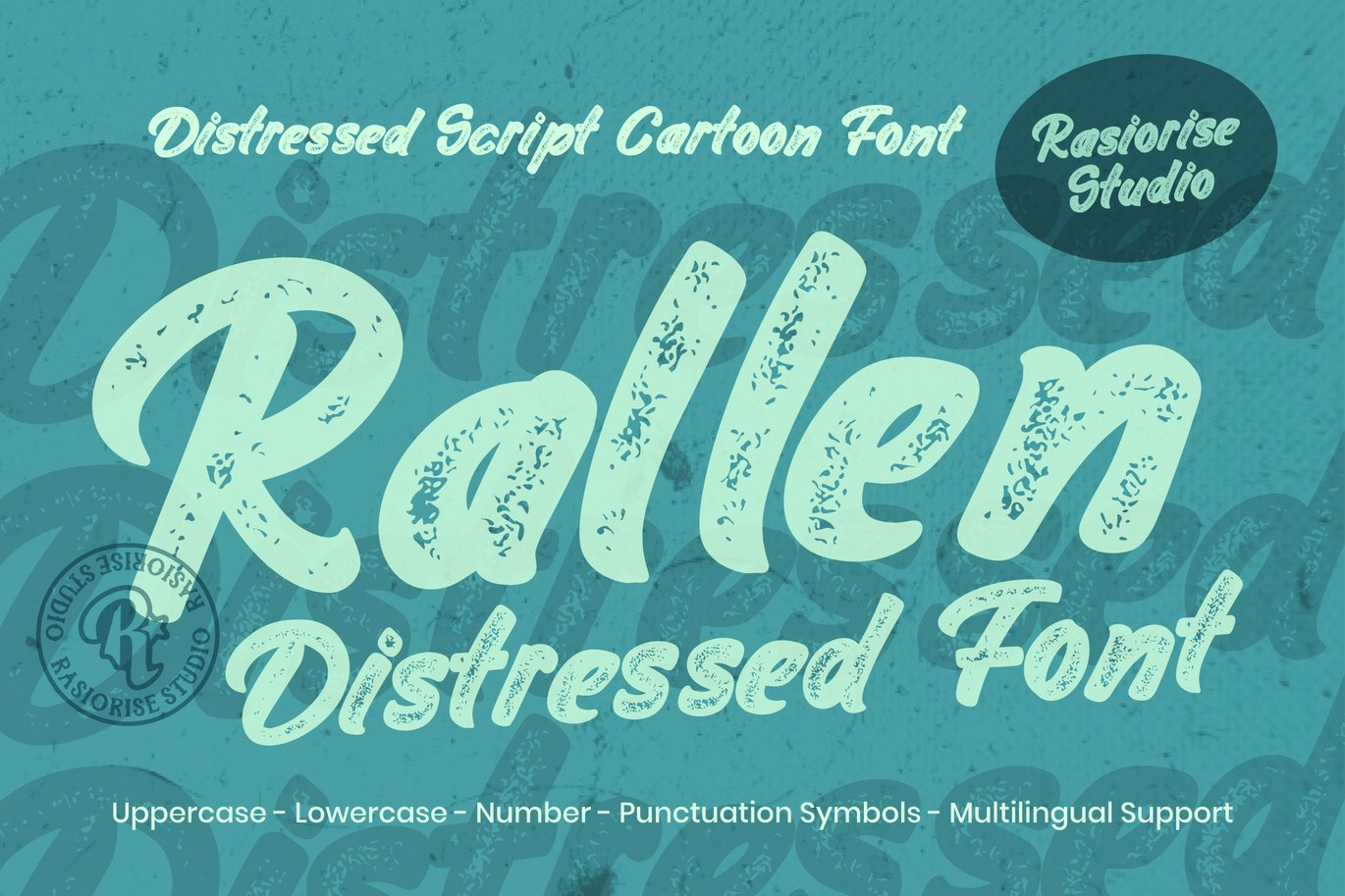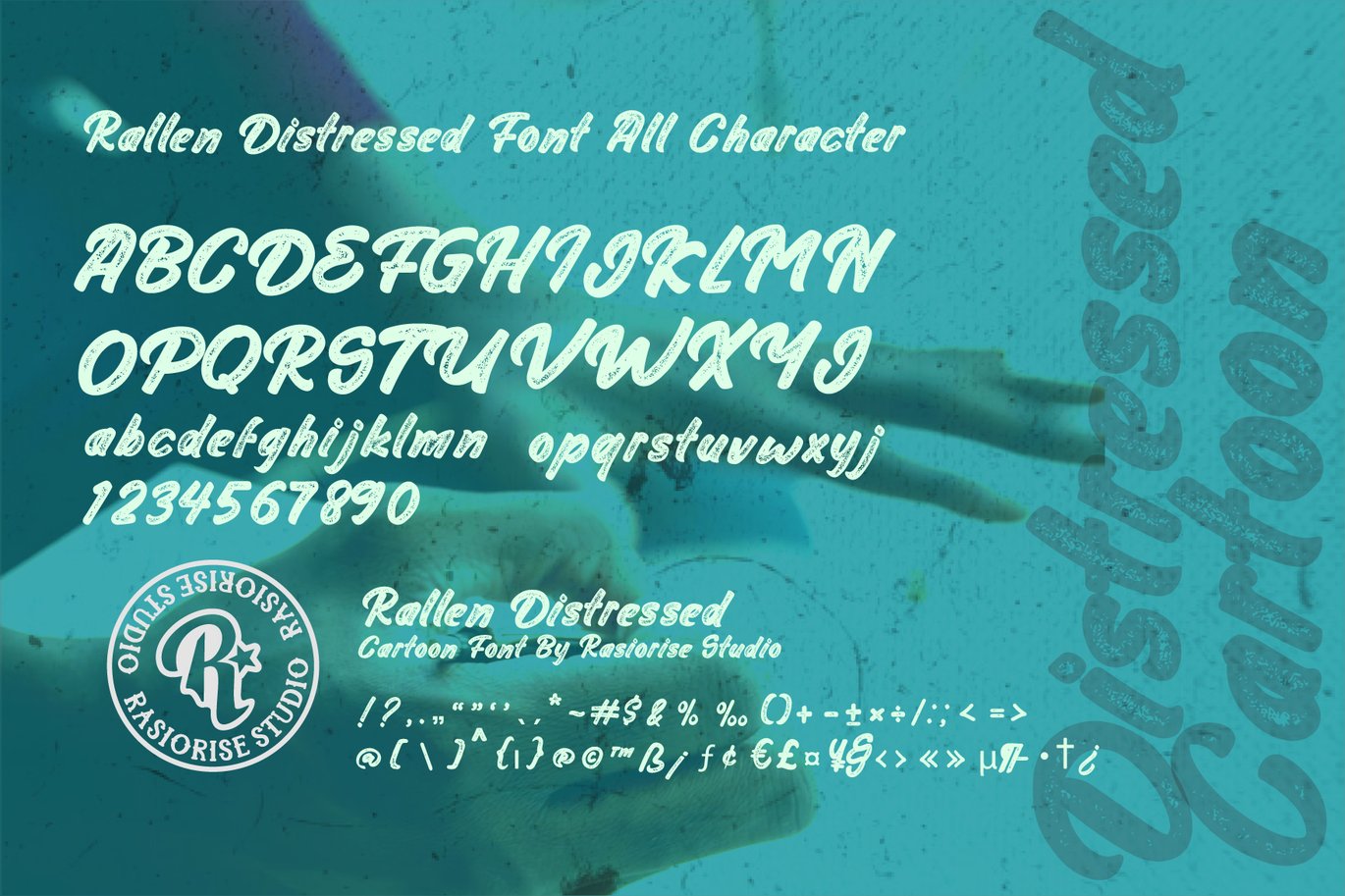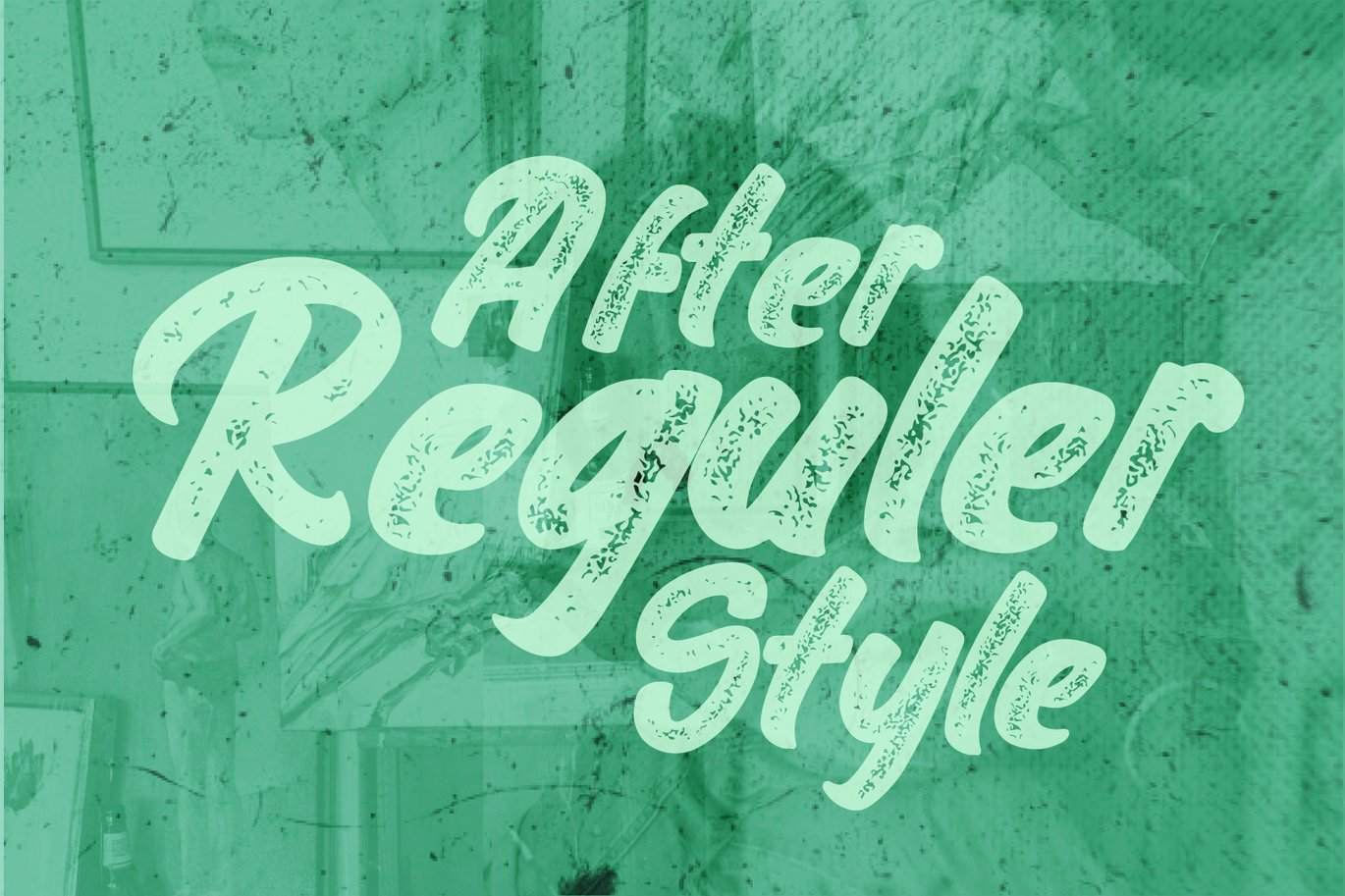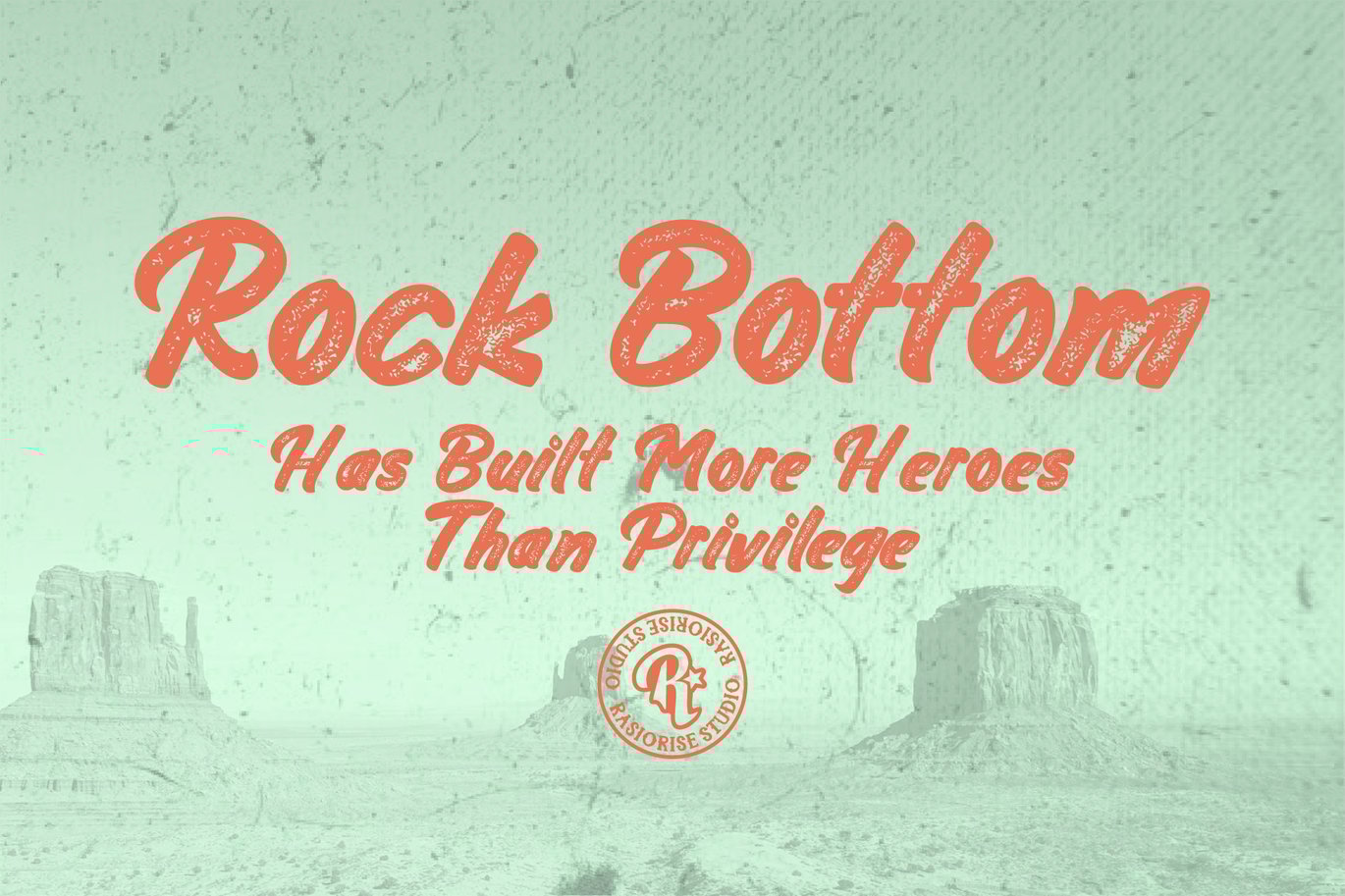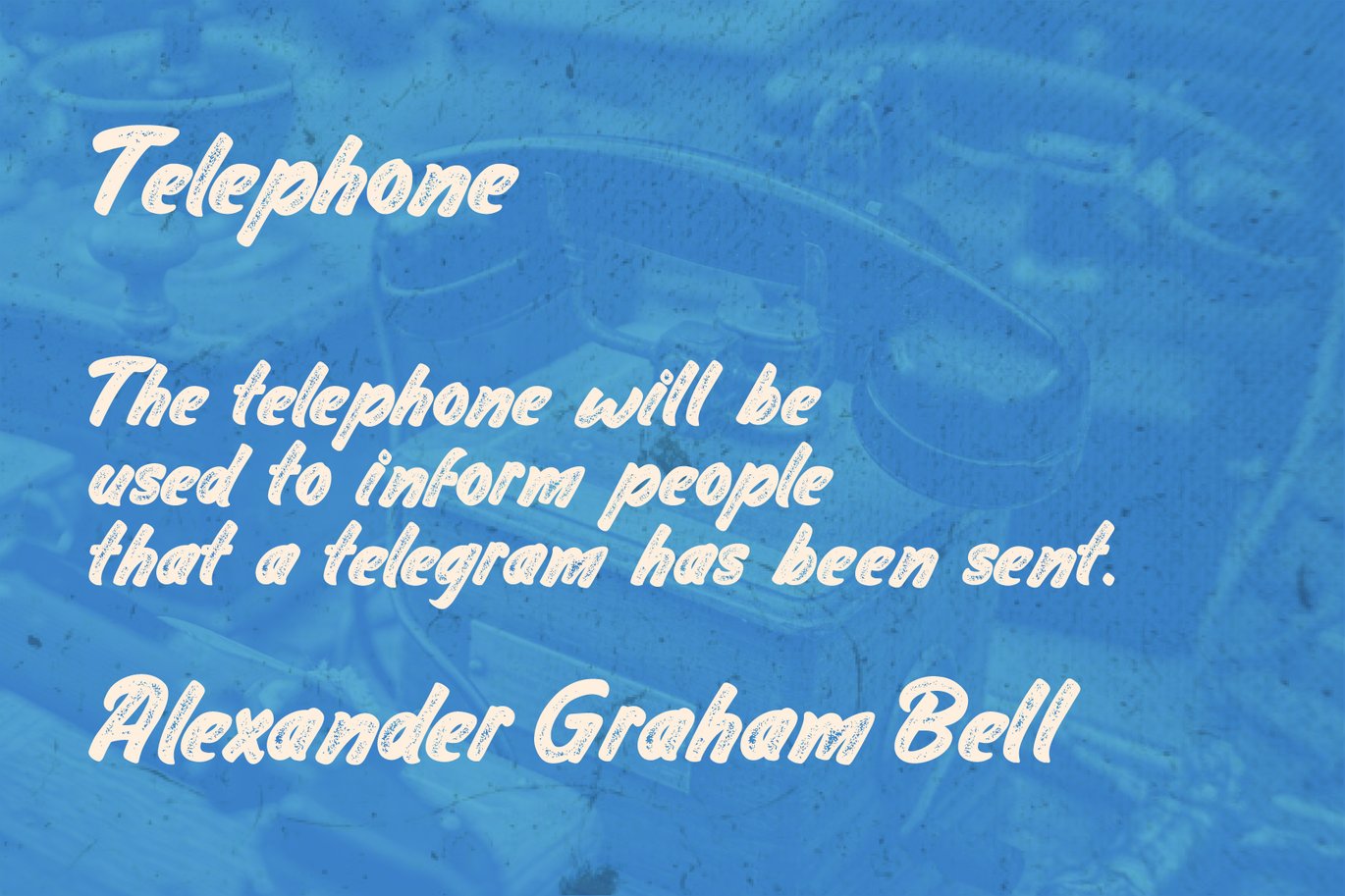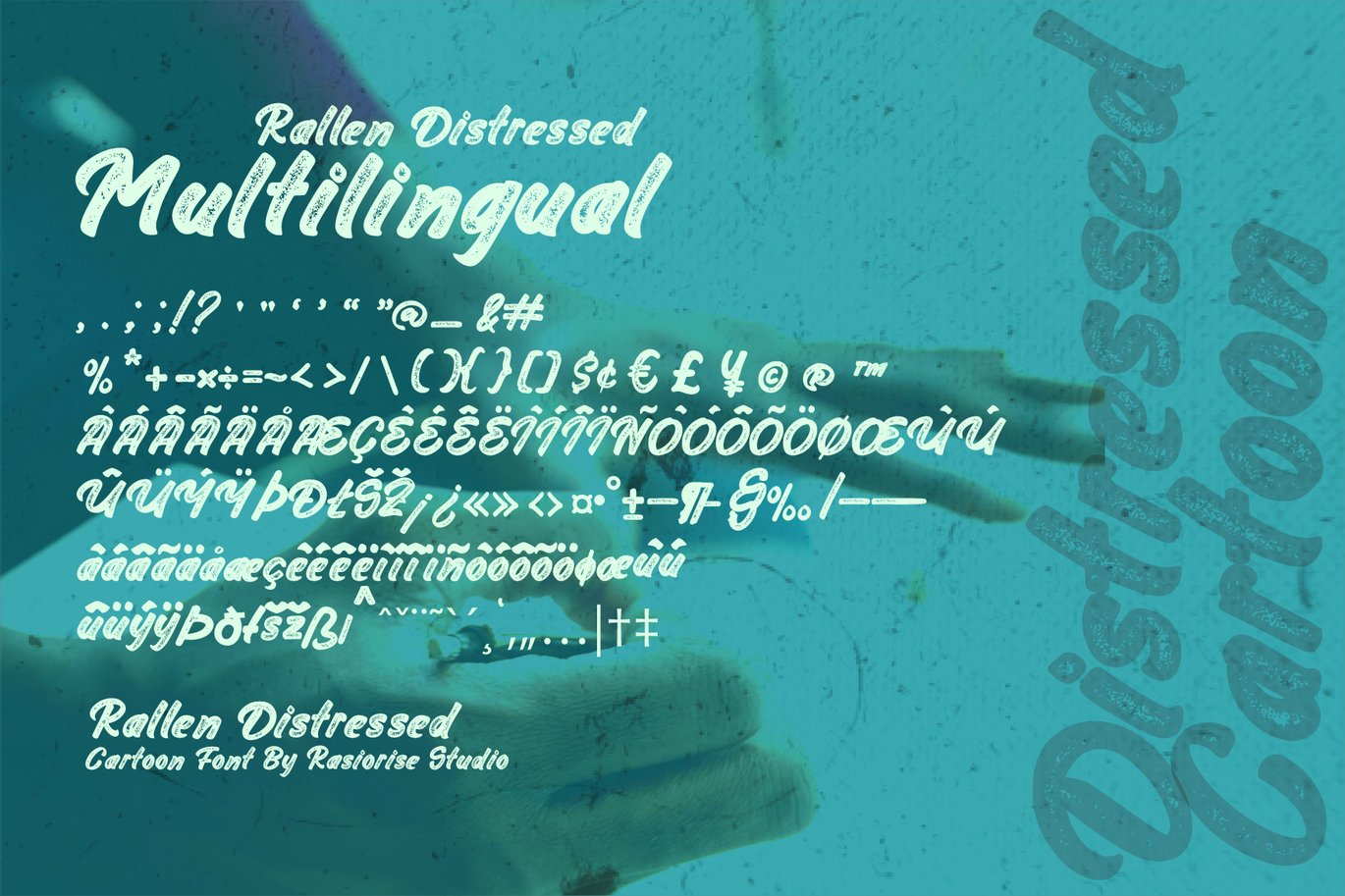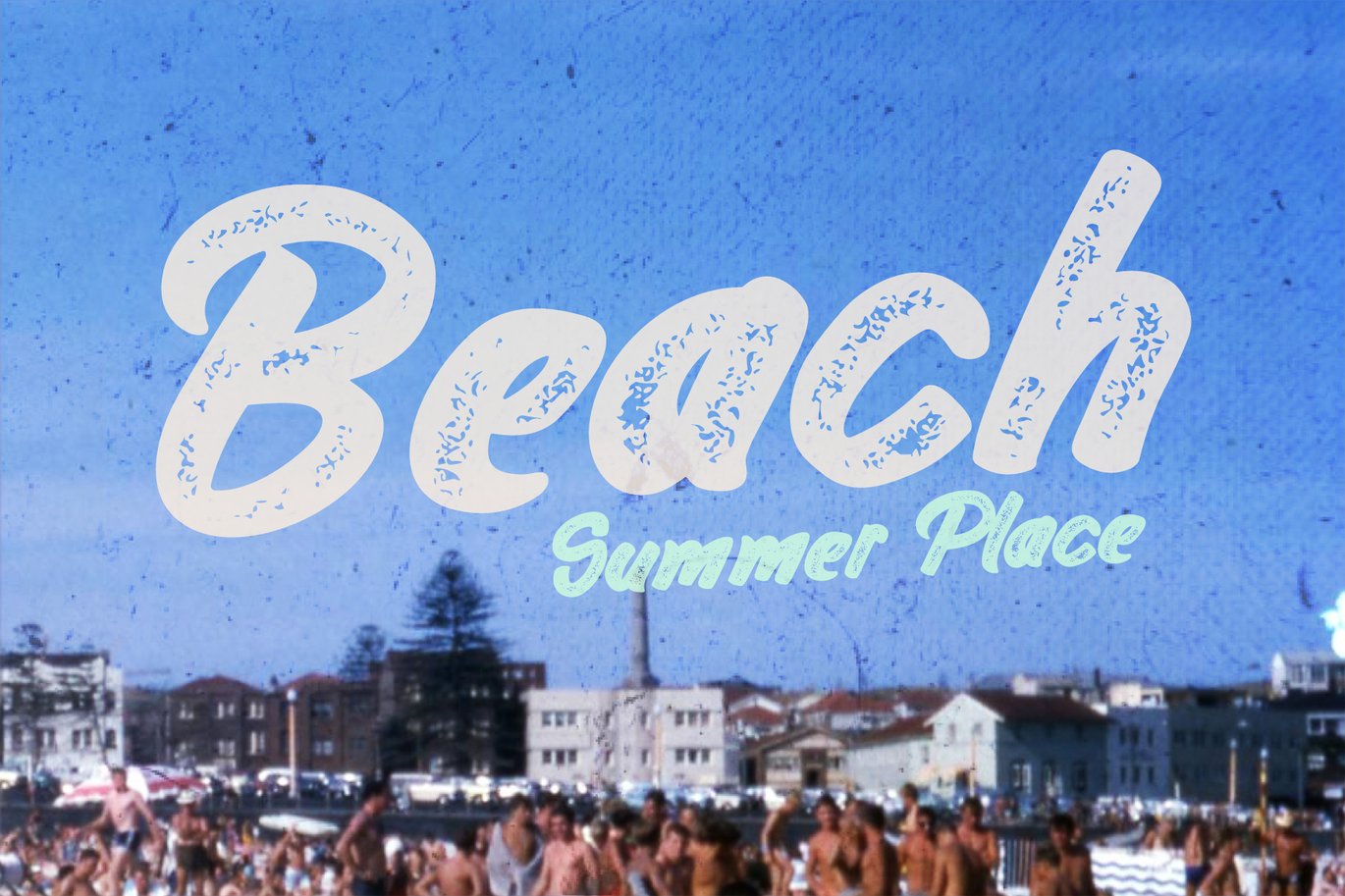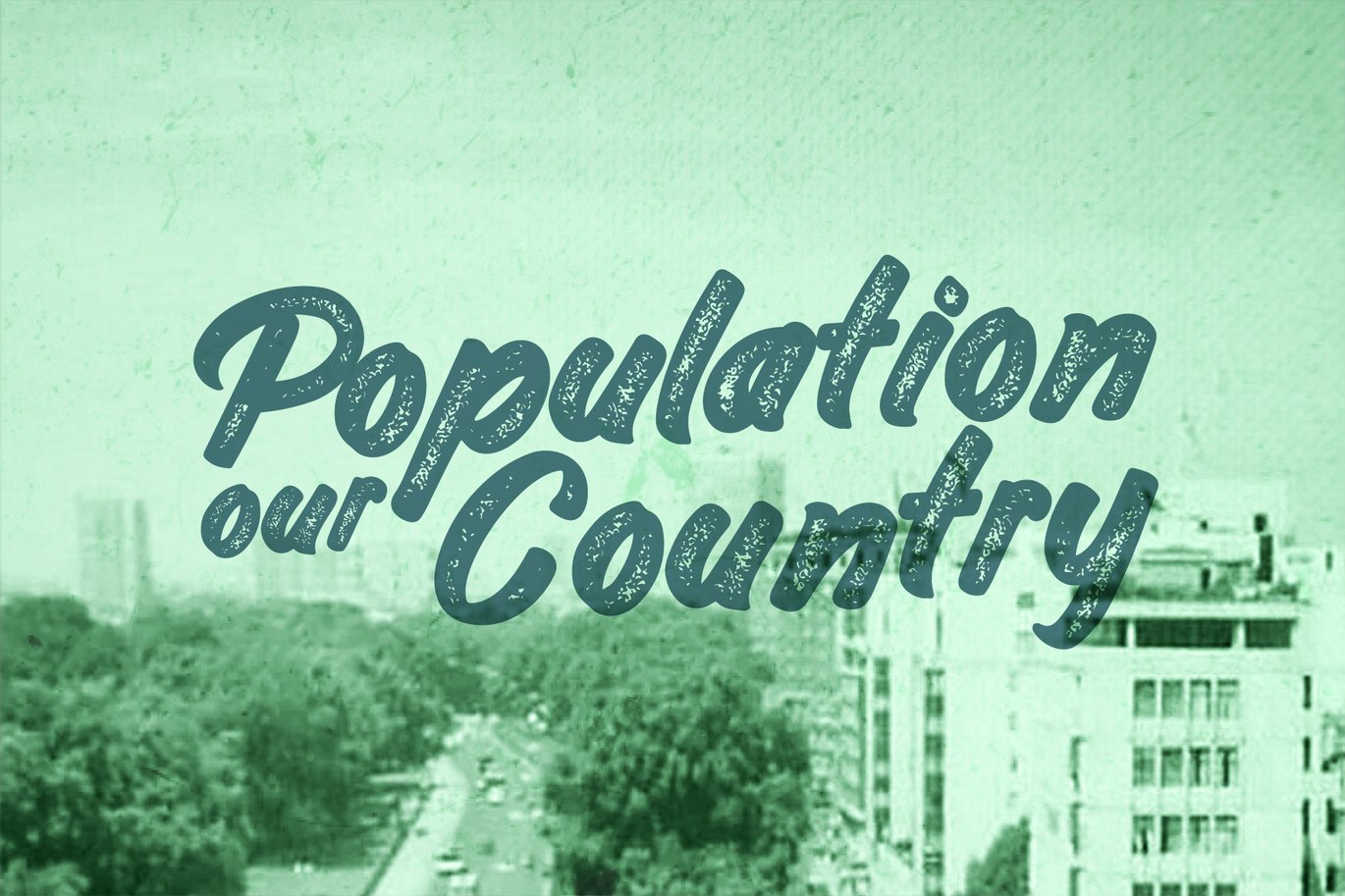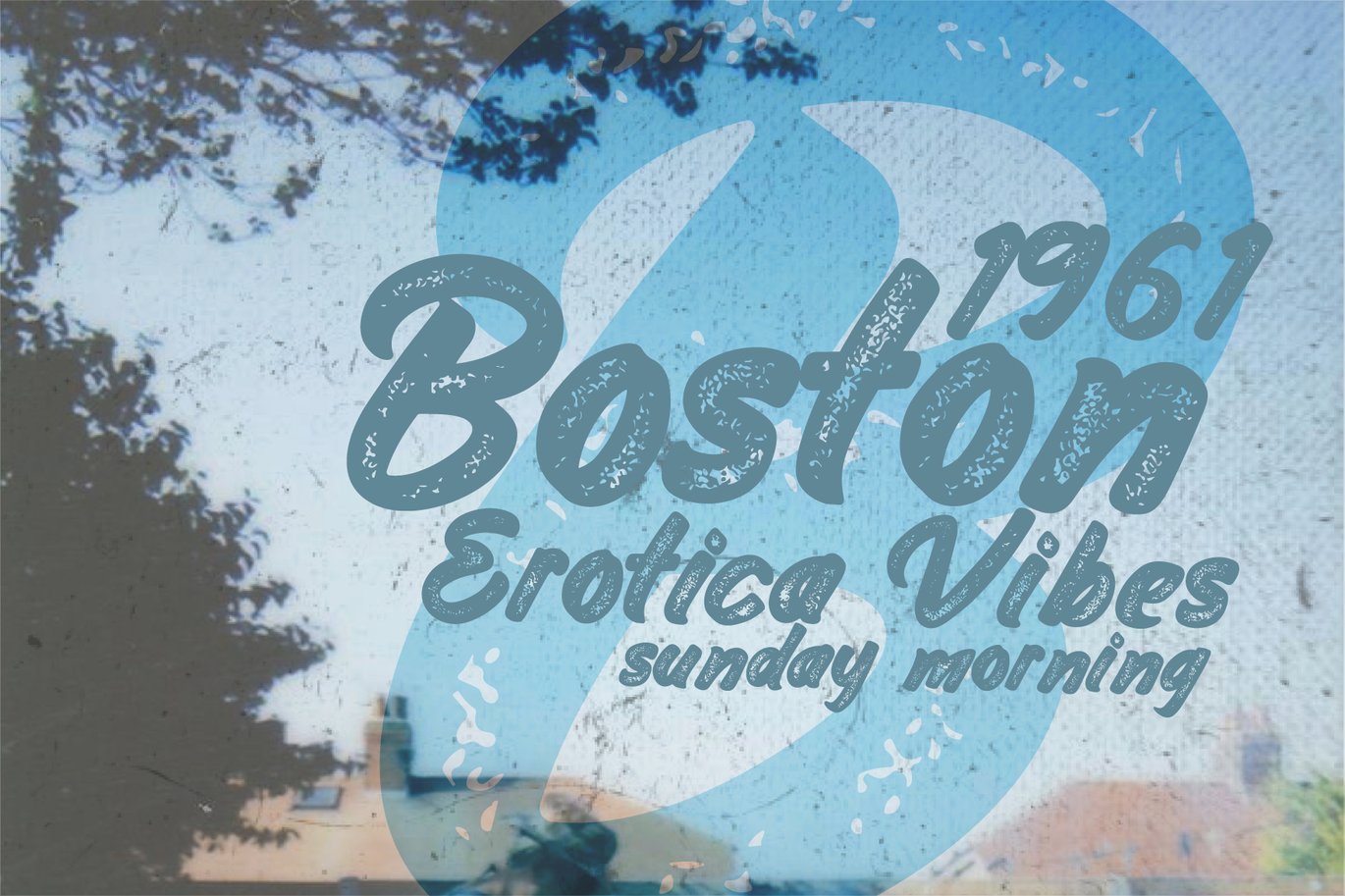
Rallen Distressed – Cursive Script Font
Introducing Rallen Distressed Script Font By Ratiorise Studio, font development of the cartoon font Rallen part one with the accentuation distressed in middle body font.
Rallen Distressed has been released for those of you looking for a Classic Typewriter and Cursive style that fits perfectly into old rustic handdrawn script and classic design themes for many projects such as Badge/Emblem Logos, corporate branding or Logotypes.